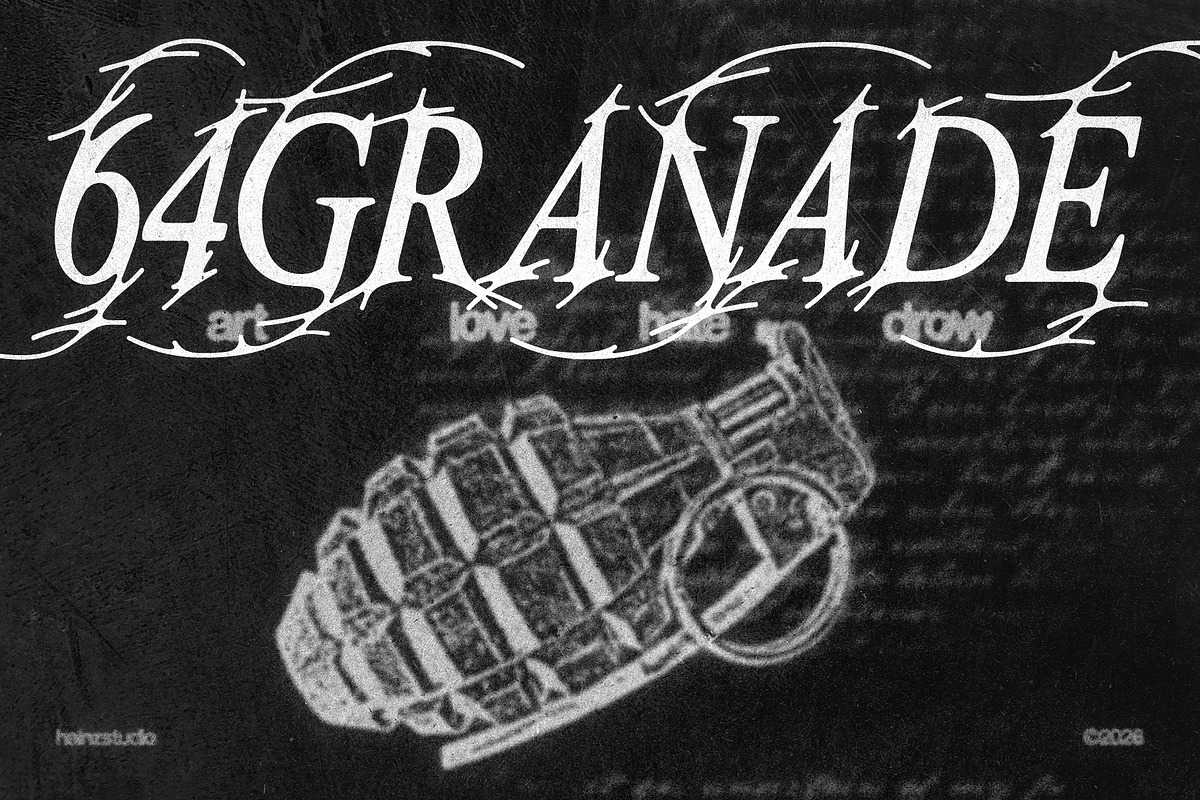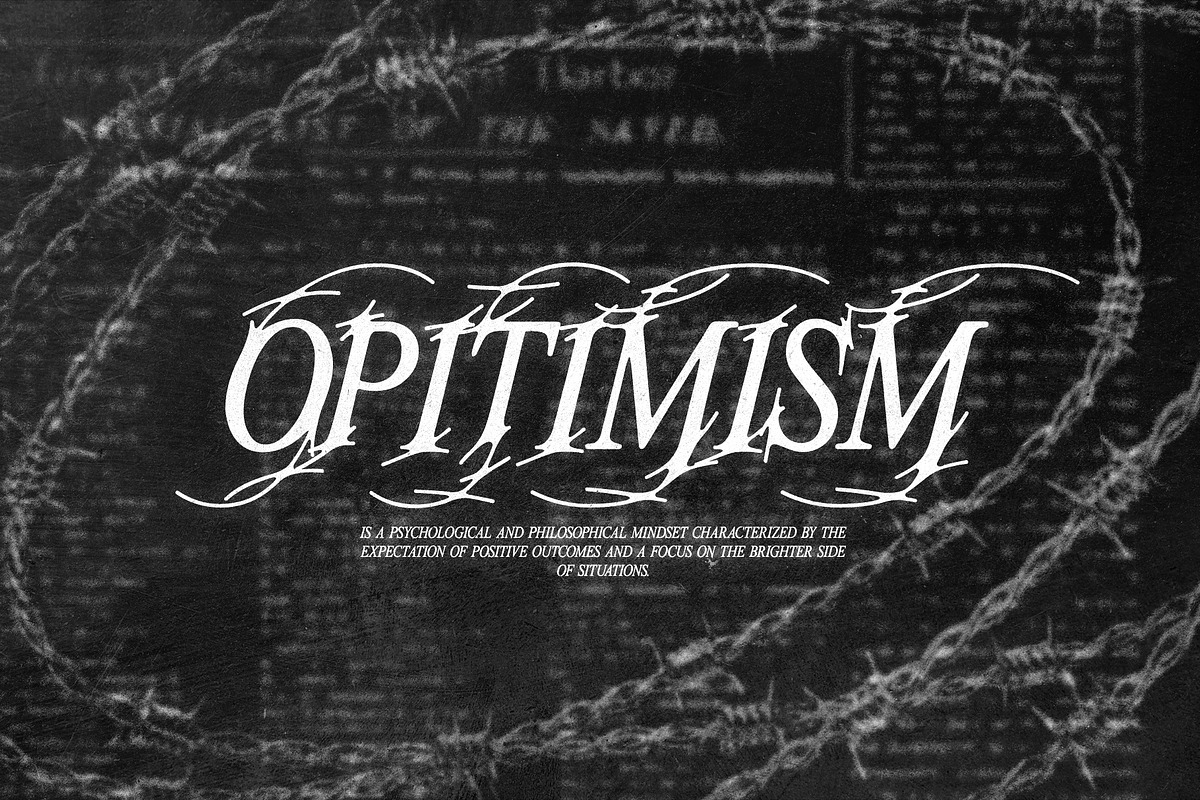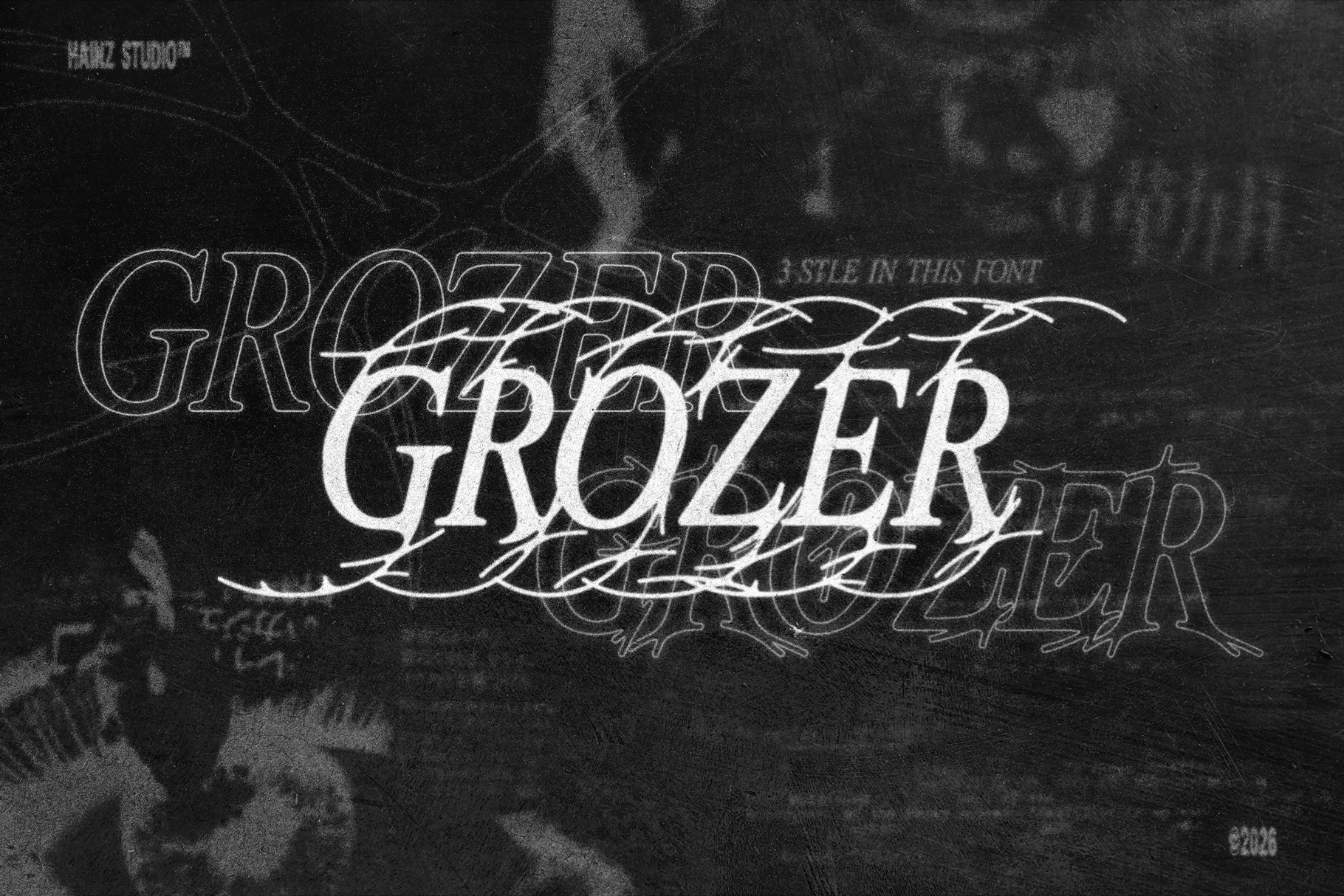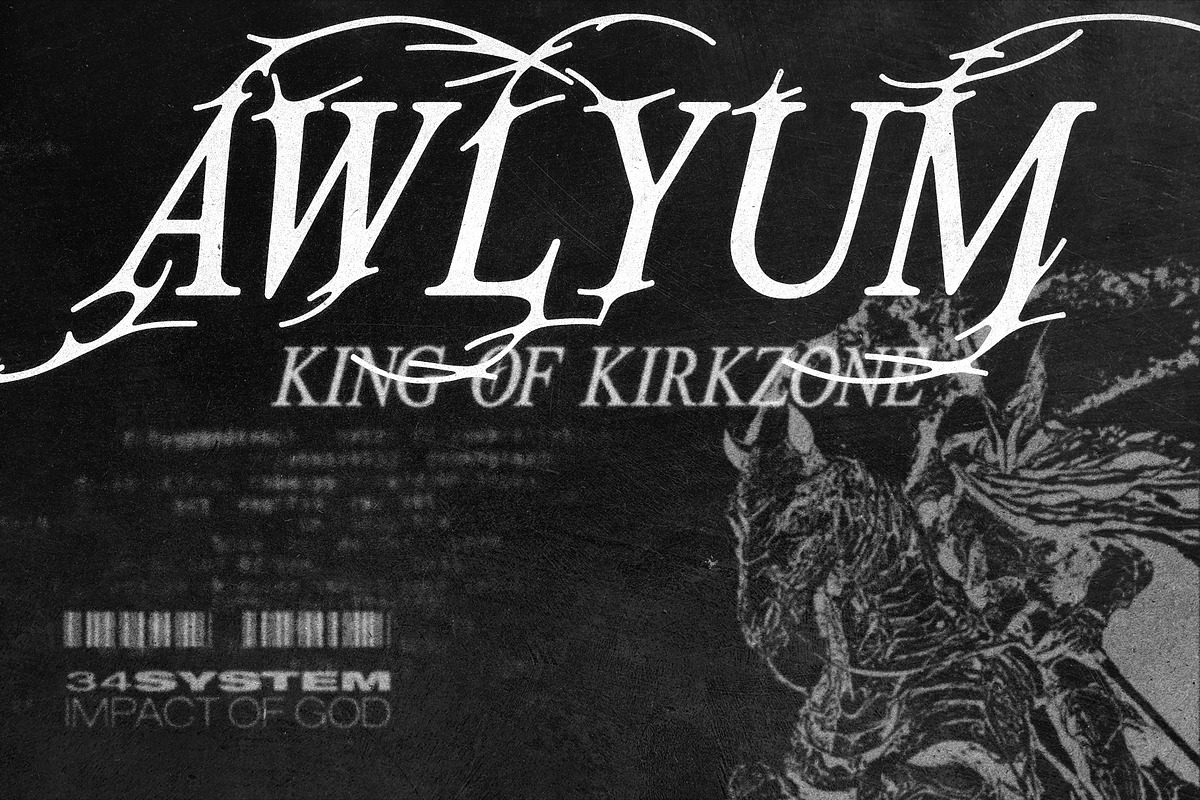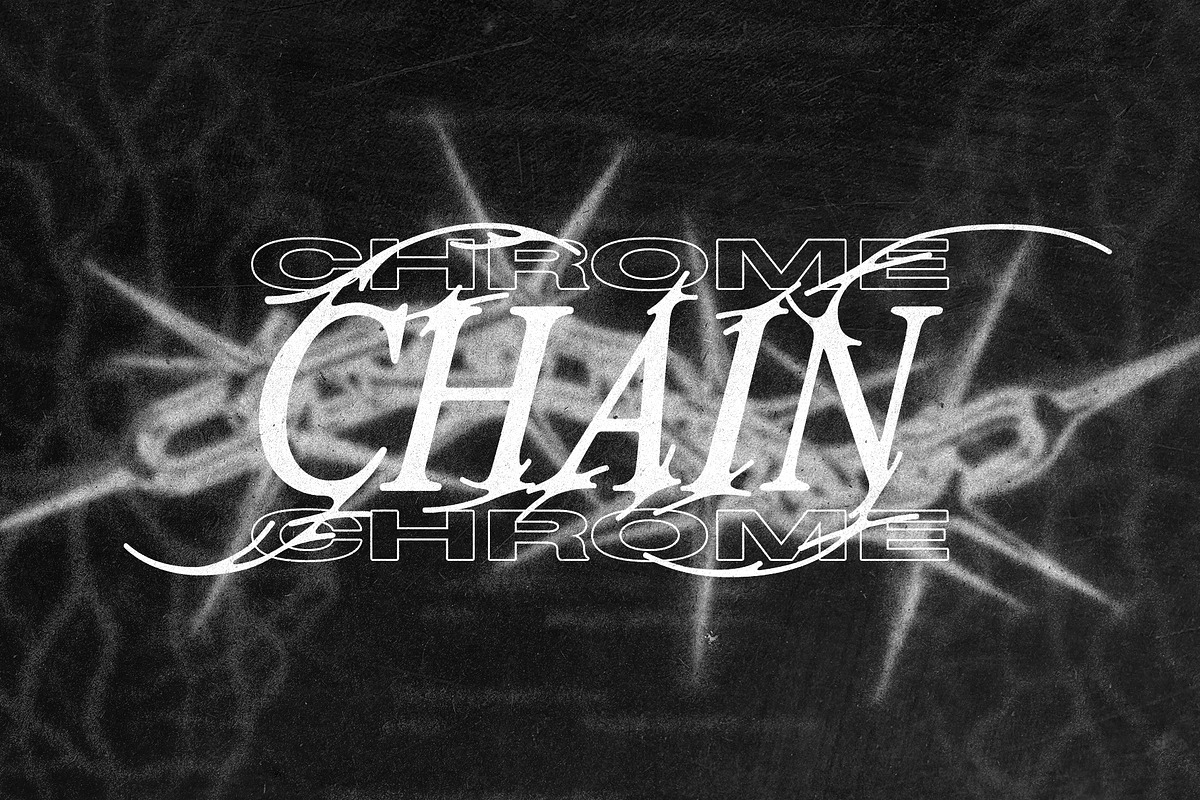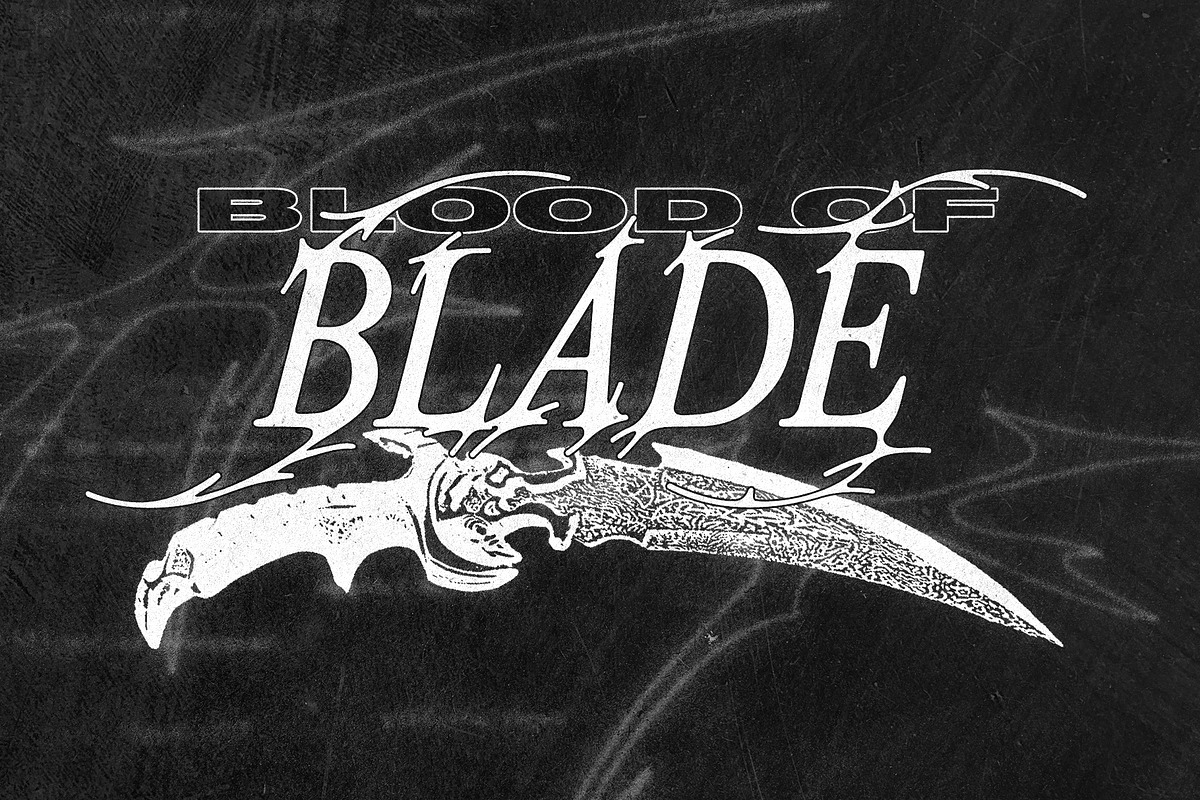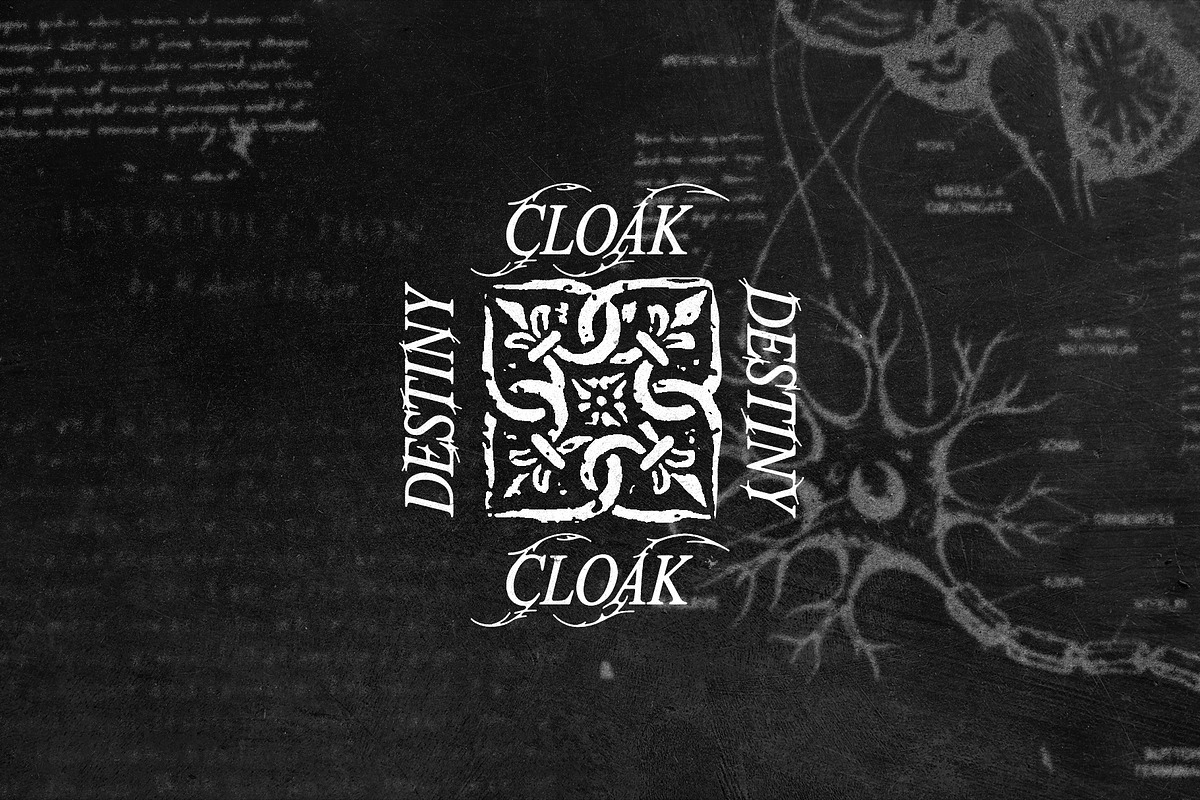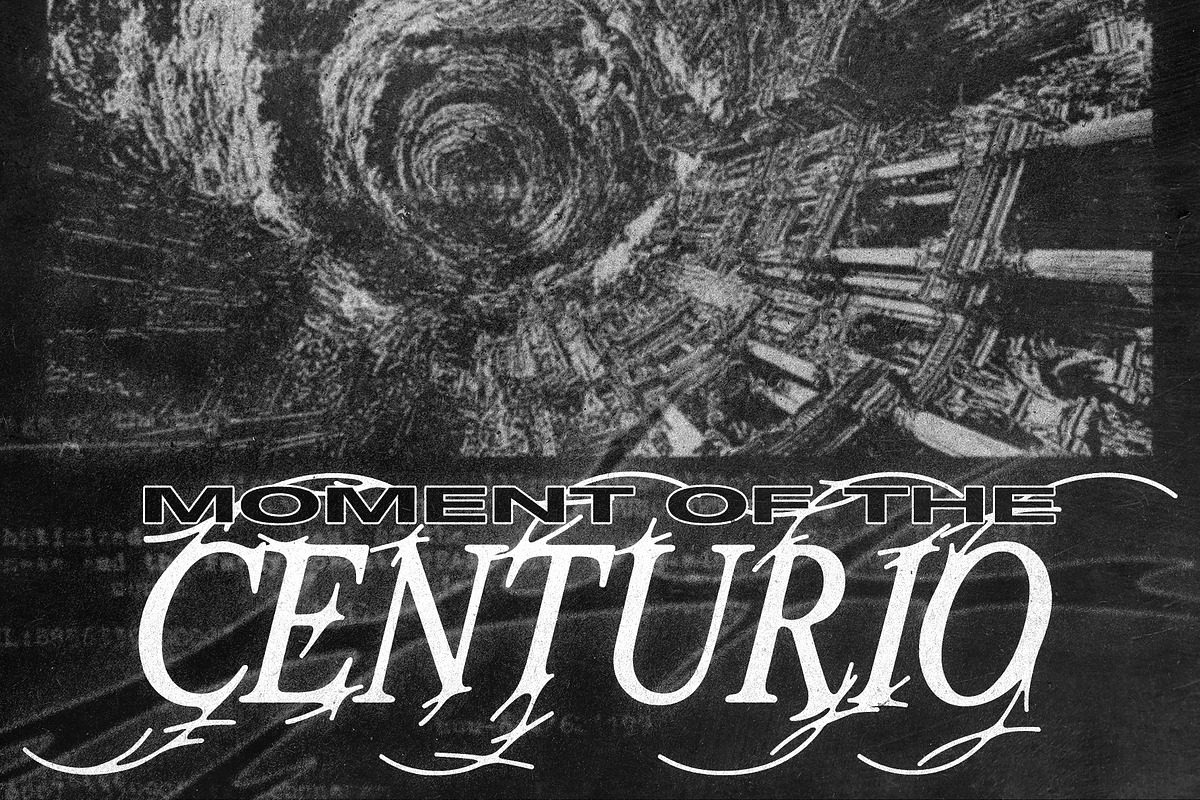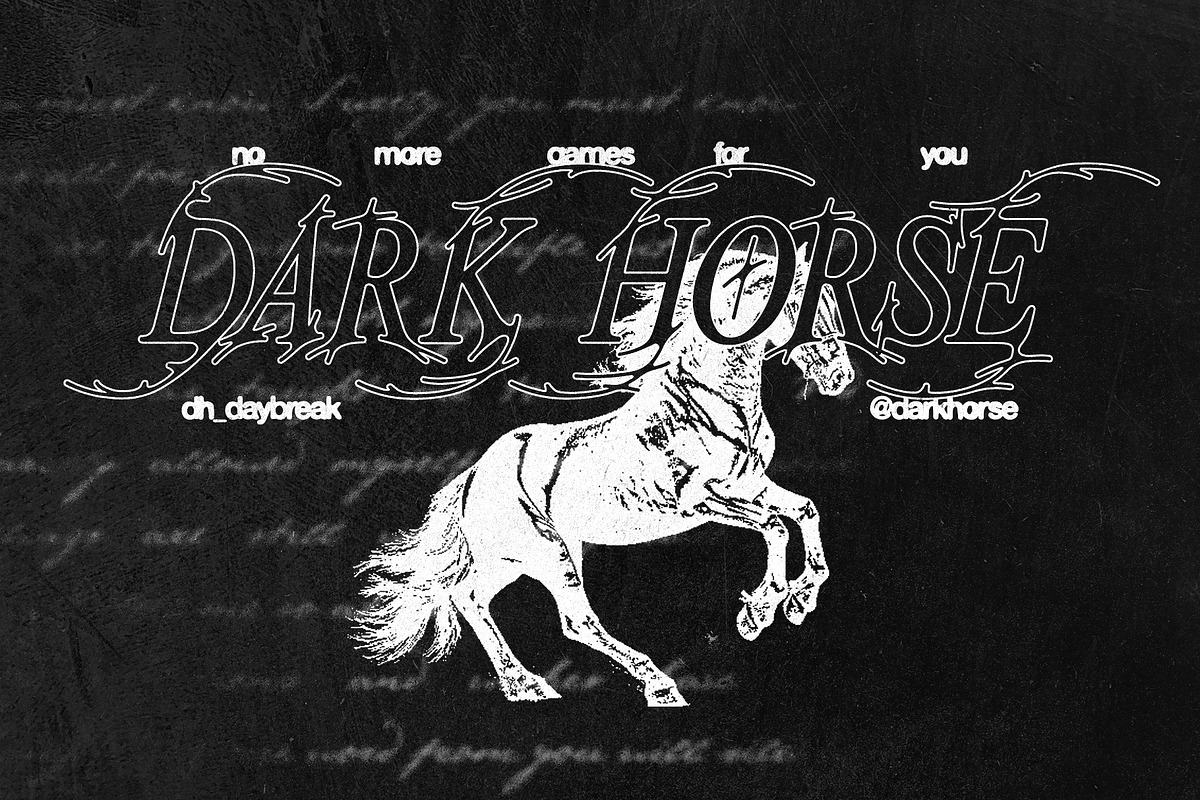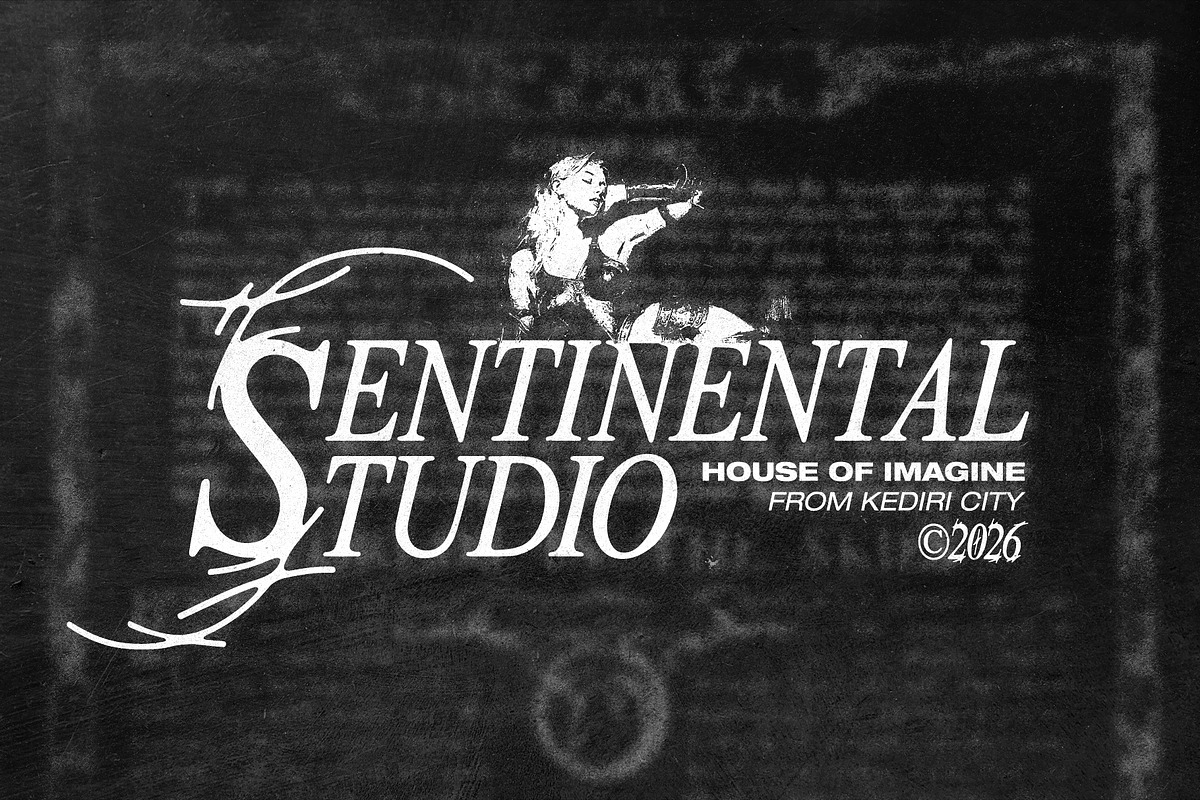
GROZER - Display Font
Grozer is a sharp, chaotic display serif inspired by thorny ornaments, blackletter energy, and distorted gothic aesthetics. Each character is wrapped in aggressive scratch-like details and flowing spiked swashes, creating a dramatic and rebellious visual identity.
Perfect for album covers, metal band logos, streetwear branding, posters, tattoos, editorial headlines, horror visuals, and experimental typography projects. Grozer combines classic serif structures with raw decorative elements to produce a dark yet elegant atmosphere.
Decorative alternate-style appearance
Strong stylistic ligatures and ornamental feel
Grozer is designed for creators who want typography that feels loud, dangerous, and unforgettable.